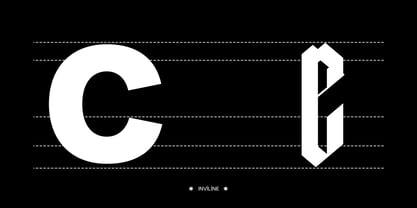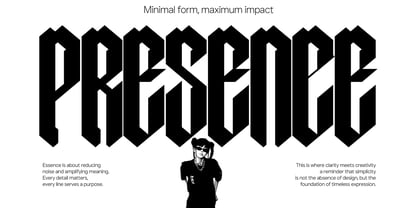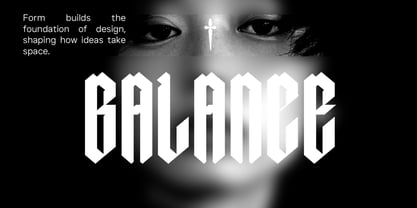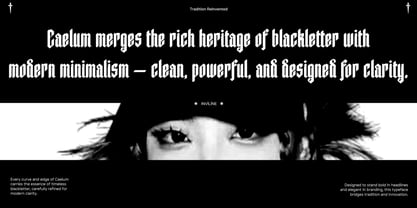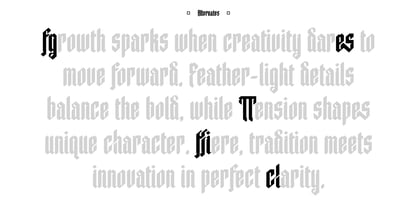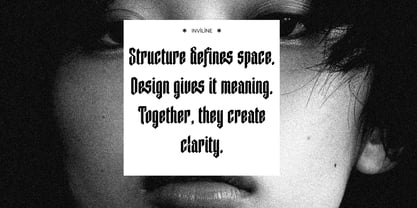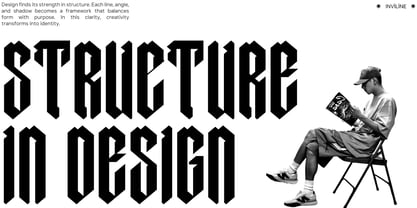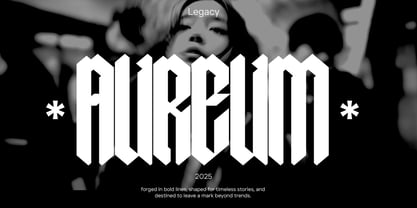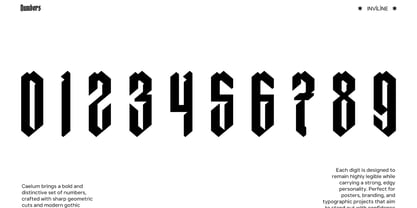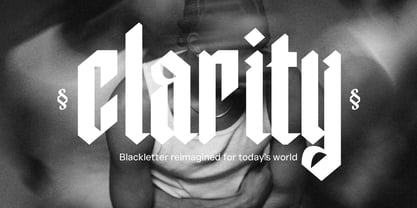
Caelum PRO
by Inviline
The Caelum PRO Font Family was designed by Virgiawan Listanto and published by Inviline. Caelum PRO contains 1 styles. More about this family
Caelum is a modern minimalist blackletter typeface that reinterprets gothic tradition with sharp geometry, bold rhythm, and refined clarity, designed to stand strong in contemporary design while preserving historic character. Built with clean angles and structured forms, it delivers authority, elegance, and cultural depth in every letterform. What You Get: full uppercase and lowercase characters, numerals, punctuation, multilingual support, and distinctive alternates crafted for expressive typography. Perfect font for impactful headlines, branding systems, posters, editorial layouts, music visuals, street culture projects, and any design that demands confident presence with timeless edge.
Designers: Virgiawan Listanto
Foundry: Inviline